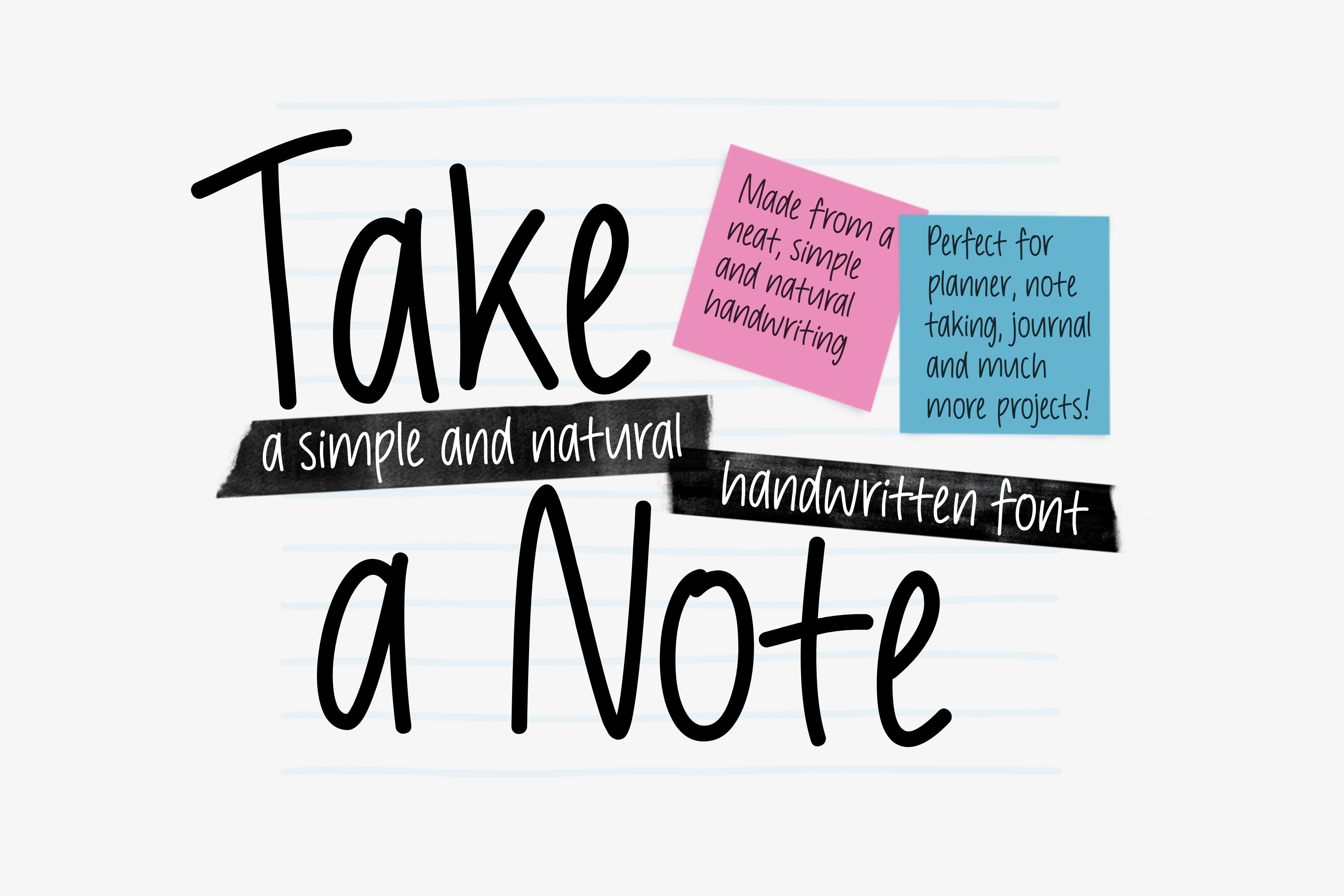
Take a Note - handwritten font
Take a Note is a natural handwriting font. You can use this font in various projects - blog posts, digital planner, invitations, greeting cards, planners, photo albums, decorations and much more. Thank you :)